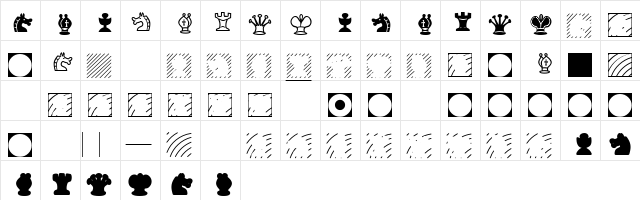
XKiddyChessFont Regular Font Preview
XKiddyChessFont Regular
Design Context for XKiddyChessFont Typeface
XKiddyChessFont is a composed and adaptable typeface that performs quietly and consistently across a wide range of design contexts.